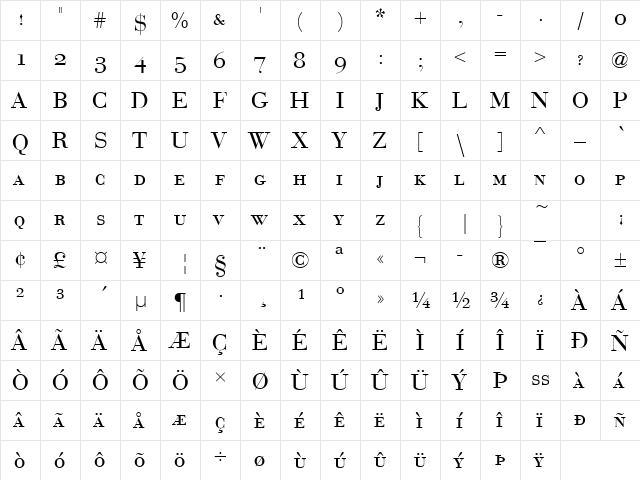
BauerBodSCDReg Regular
Design Context for BauerBodSCDReg Typeface
BauerBodSCDReg offers clean, dependable letterforms without strong stylistic allegiance, making it a practical choice for designers who need flexibility.